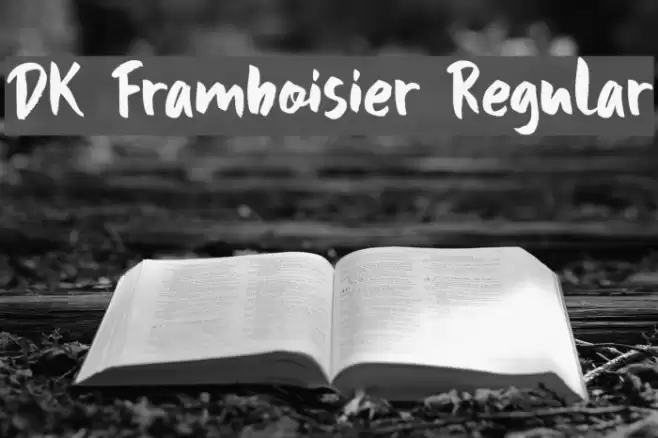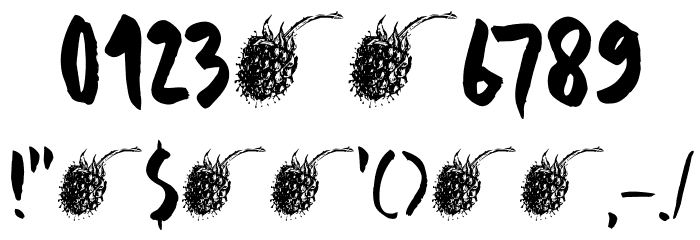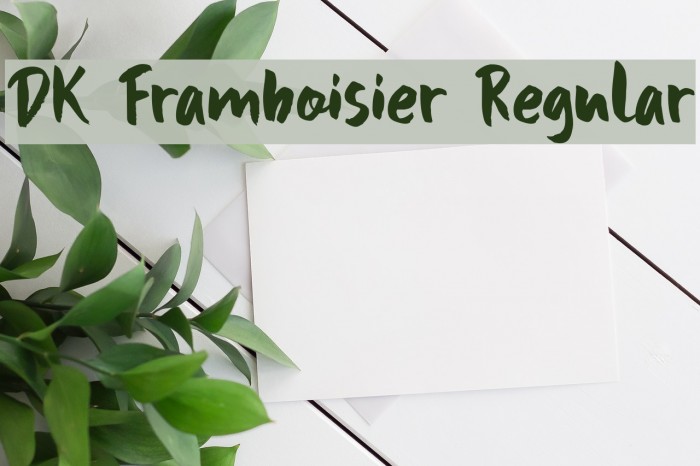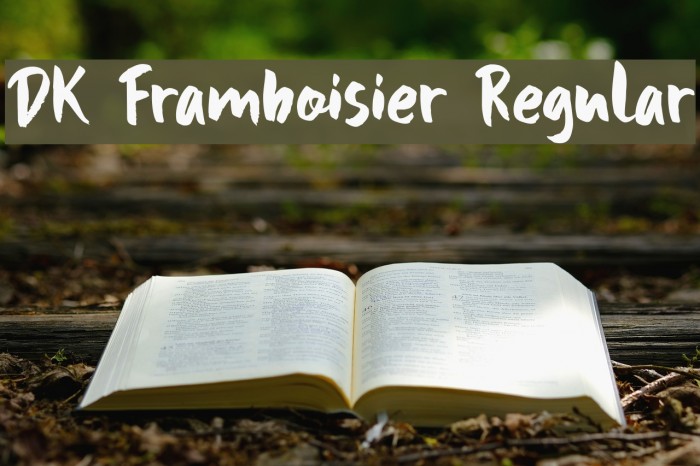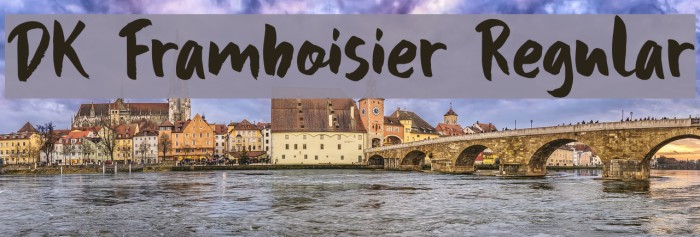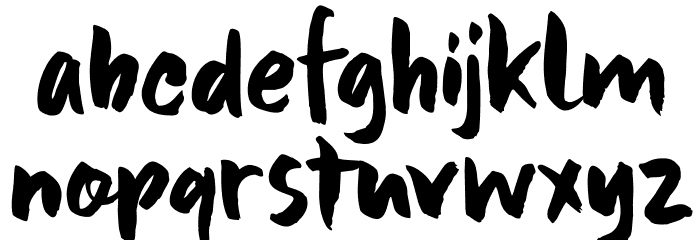
DK Framboisier Regular Font
This font features a bold, expressive style with a hand-painted appearance. The characters are irregular and dynamic, giving a sense of movement and energy. The uppercase and lowercase letters maintain a consistent brushstroke texture, adding to the font's artistic flair. The numbers and special characters are equally bold, with unique, playful elements that enhance the font's creative appeal. The overall design is both striking and versatile, suitable for projects that require a touch of personality and creativity.
A bold, hand-painted style font with dynamic brushstroke texture from Uncategorized fonts.
- Proposed Projects: Ideal for posters, branding, packaging, and creative design projects that require a bold, artistic touch.
- Overall Style: Artistic, Expressive